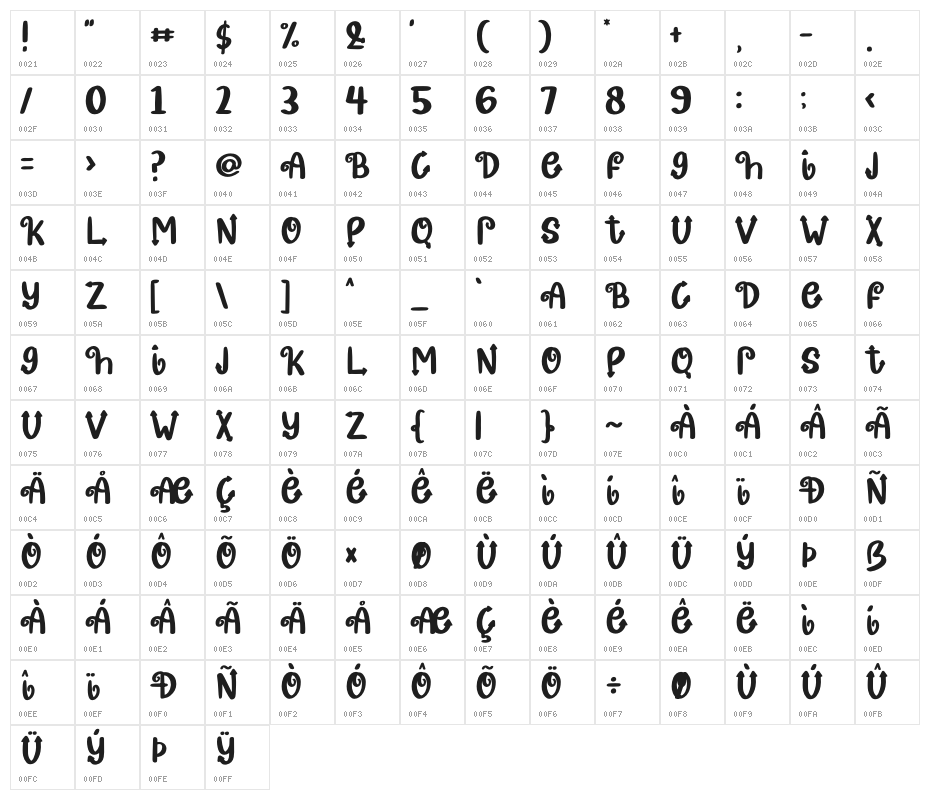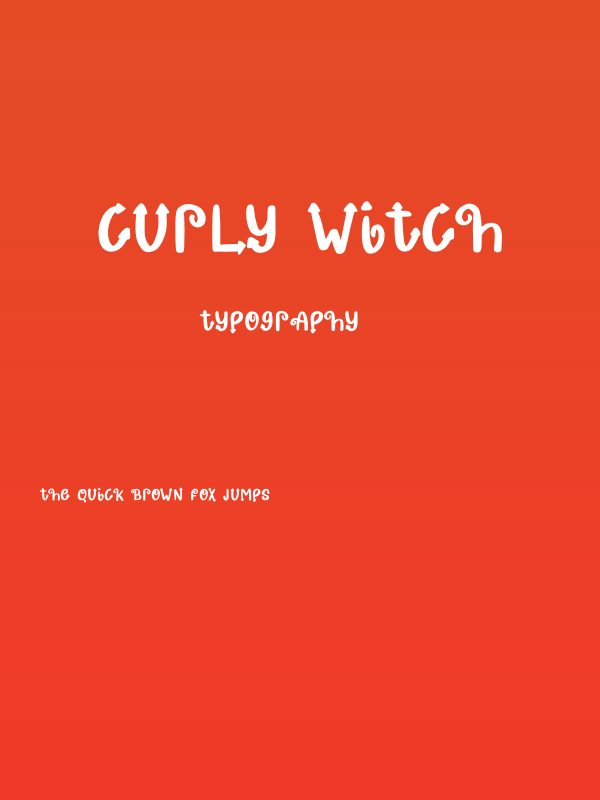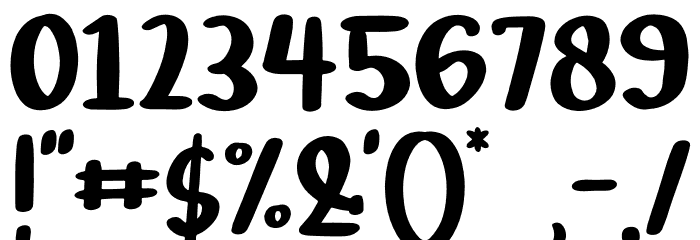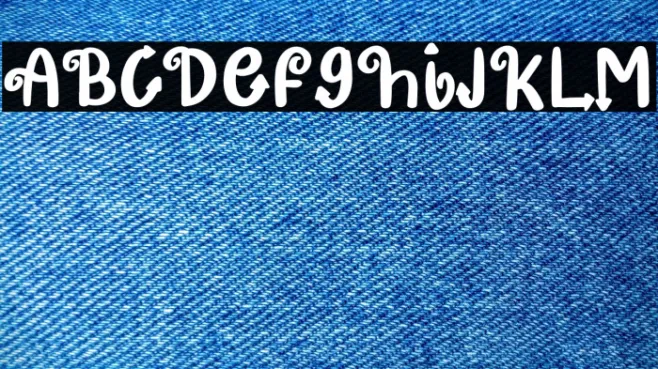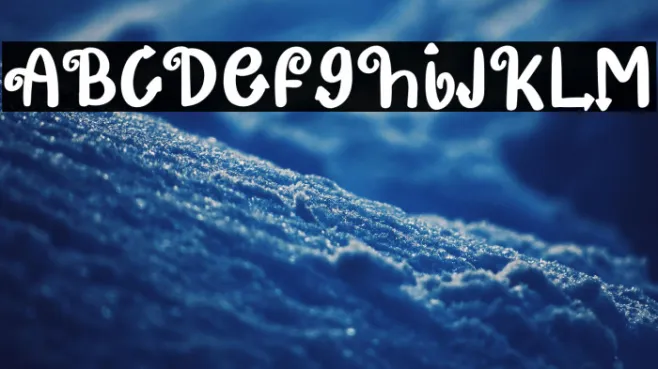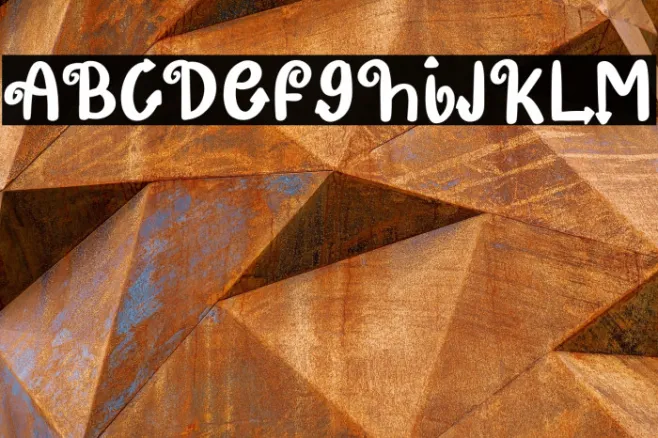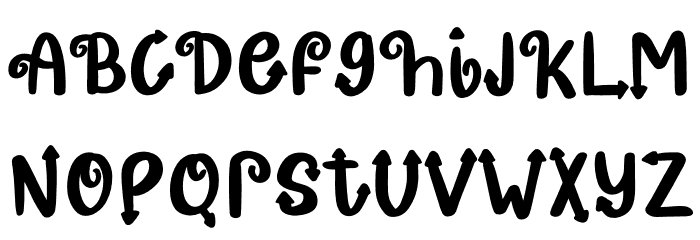
Curly Witch Font
Curly Witch Description
This font features a whimsical and playful design, characterized by its curly and looping strokes that give it a lively and energetic appearance. The letters are bold and rounded, with a consistent thickness throughout, making them highly legible while maintaining a decorative flair. The uppercase and lowercase letters share a similar style, with the lowercase letters slightly smaller in size. The numbers and special characters are designed to match the overall aesthetic, ensuring a cohesive look across all text. This font is ideal for projects that require a fun and engaging visual element.
| Proposed Projects | Ideal for children's books, party invitations, playful branding, and creative posters. |